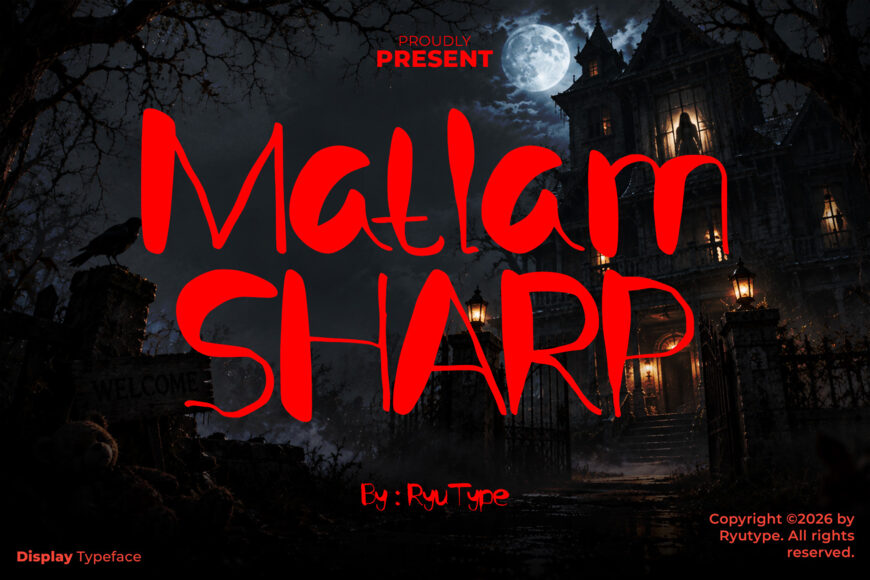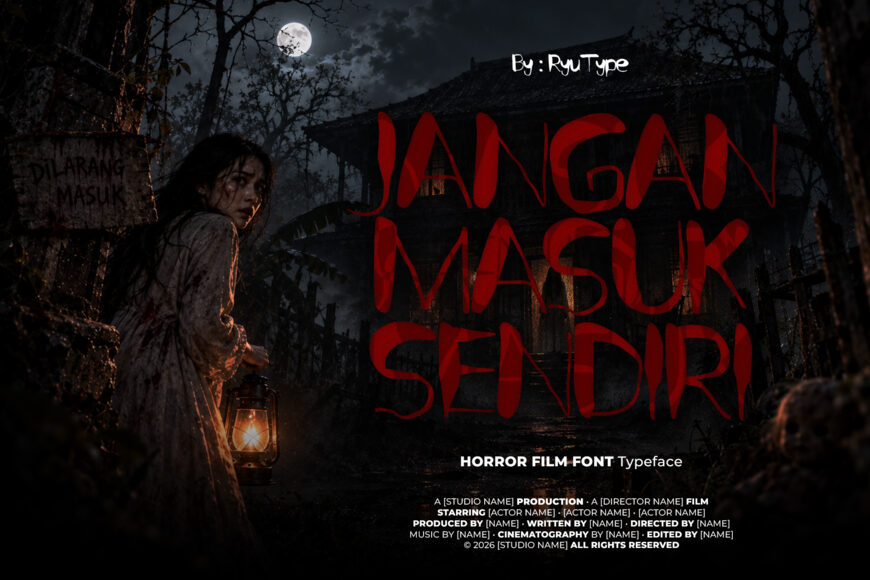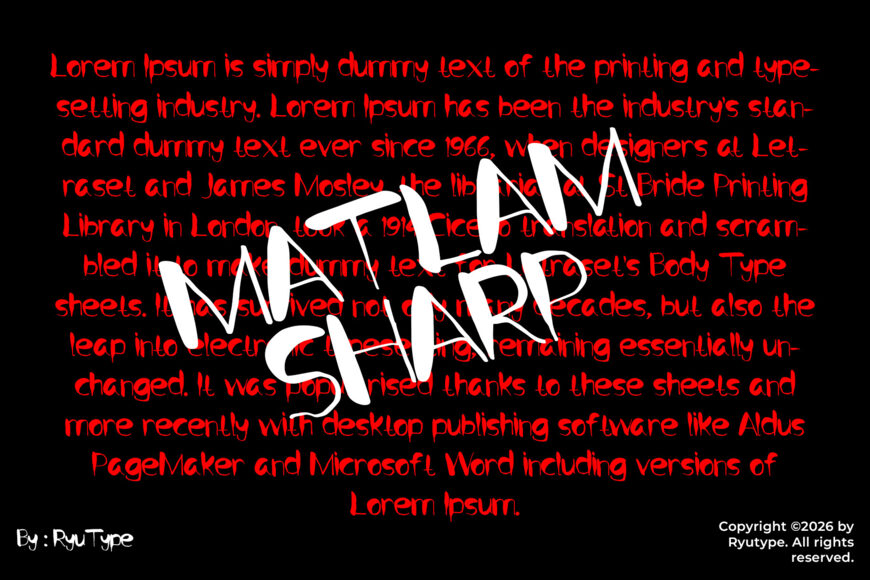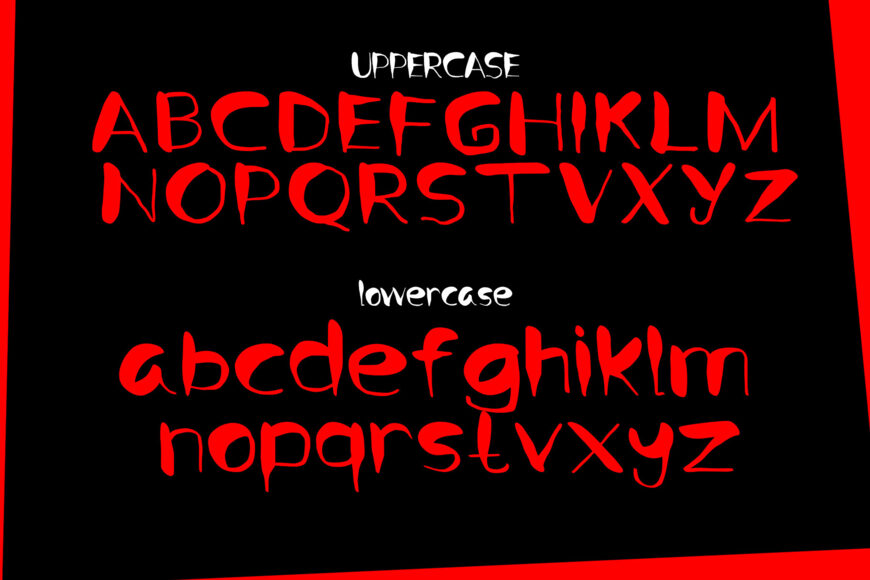
Matlam Sharp is a raw and unsettling display typeface inspired by the visual language of horror, dark folklore, and hand-drawn lettering. Its irregular strokes, sharp cuts, uneven forms, and organic imperfections create an eerie and unpredictable personality. The handmade construction gives every letter a distressed, sinister character that works especially well in dark and atmospheric designs.
Perfect for horror movie posters, thriller titles, haunted house graphics, dark branding, album covers, Halloween designs, book covers, posters, apparel, logos, and dramatic headlines.